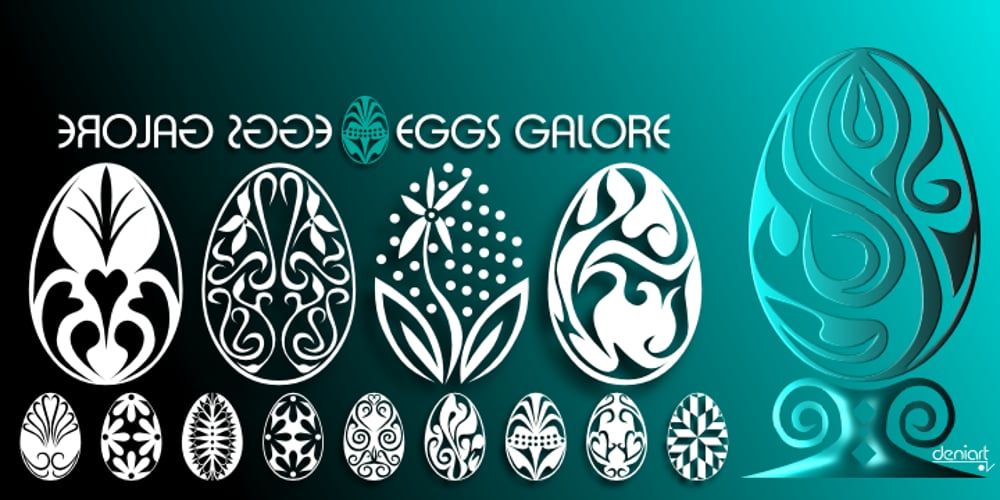
Eggs Galore Font Family was designed by Denise Koehler and published by Deniart Systems. Eggs Galore contains 1 styles and family package options. EggsGalore consists of 52 decorative eggs along with 10 pedestals. These egg-shaped illustrations feature various decorative patterns ranging from geometric to frilly – great for greeting cards, posters, invitations. The EggsGalore font collection is a sure addition for your Easter or other decorative inspirations.